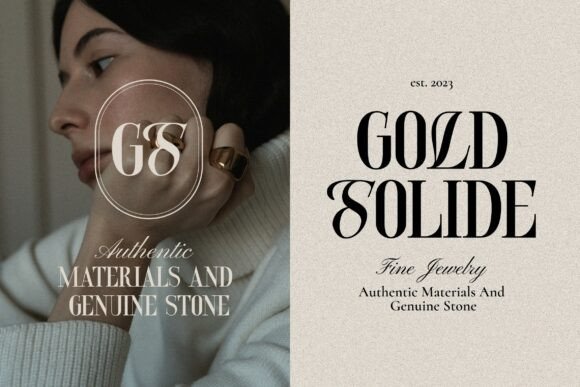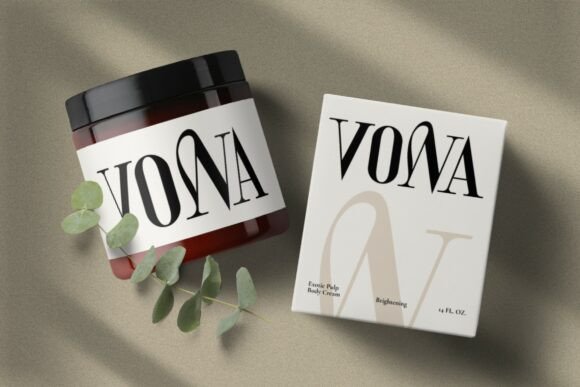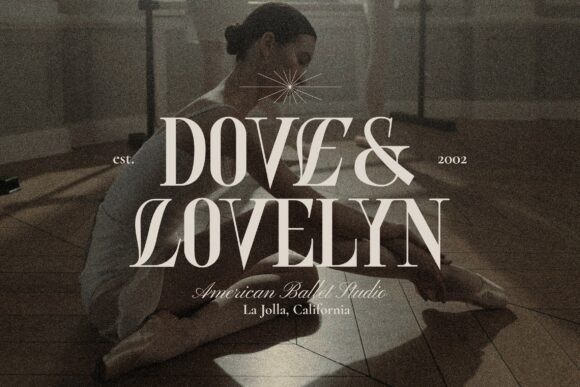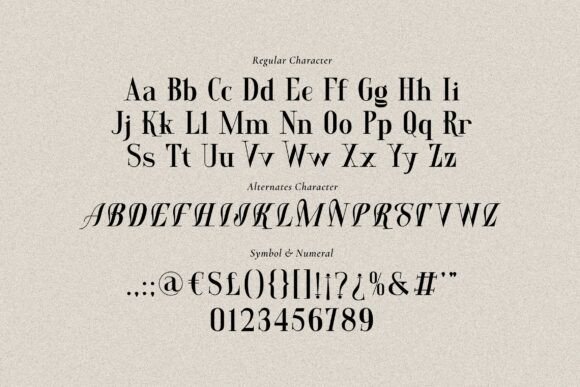
Unlocking Timeless Elegance with the Gomied Aesthetic Font
Have you ever found yourself stuck in a design rut, struggling to convey the perfect balance of sophistication and charm in your work? You’re not alone. As creatives, we’re always on the hunt for that elusive font that speaks to our audience and elevates our brand. And then, it happens – you stumble upon a game-changer. Enter the Gomied Aesthetic Font, a stunning serif font that masterfully blends beauty and a touch of femininity, infusing your projects with a sense of contemporary class and poise.
Perfect for designers seeking to add a touch of elegance to their work, the Gomied Aesthetic Font is a versatile and modern choice that works beautifully in both uppercase and lowercase sizes. Its smooth curves and gracious lines make it an ideal choice for a wide range of projects, from display fonts for headings to product packaging and magazine layouts.
Gomied Aesthetic Font Key Features
- Font Style: Elegant, minimalist aesthetic with a unique blend of modern and classic elements.
- Unique Characteristics: Distinctive rounded edges, subtle texture, and carefully crafted letterforms that evoke a sense of sophistication and elegance.
Gomied Aesthetic Font Review
Overall, I found the Gomied Aesthetic Font to be a unique and intriguing addition to any design project. ✨ Its elegant and modern feel makes it perfect for creating a sophisticated and professional look. The font’s subtle nuances in letterform and stroke weight add depth and visual interest, making it a great choice for designers looking to add some personality to their work.
One of the standout features of the Gomied Aesthetic Font is its versatility. ✨ It can be used for a wide range of applications, from headings and titles to body text and even logos. The font’s clean lines and minimal ornamentation make it a great choice for designers who want to create a cohesive and streamlined visual identity.
- Unique and modern aesthetic
- Elegant and sophisticated feel
- Perfect for creating a professional look
- Highly versatile and suitable for various applications
- May not be suitable for very casual or playful designs
- Can appear somewhat generic or overused if not paired with other unique design elements
- Lack of bold weight options may limit its use in certain situations
- May require additional design elements to add visual interest
Overall, the Gomied Aesthetic Font is a solid choice for designers looking to add some sophistication and elegance to their work. While it may have some limitations, its unique aesthetic and versatility make it a great addition to any design project.
The Gomied Aesthetic Font is perfect for:
- Blog and social media headers
- Quote graphics
- Invitations and event materials
For optimal use, pair the Gomied Aesthetic Font with bold, contrasting colors and plenty of negative space to create a clean and modern design.